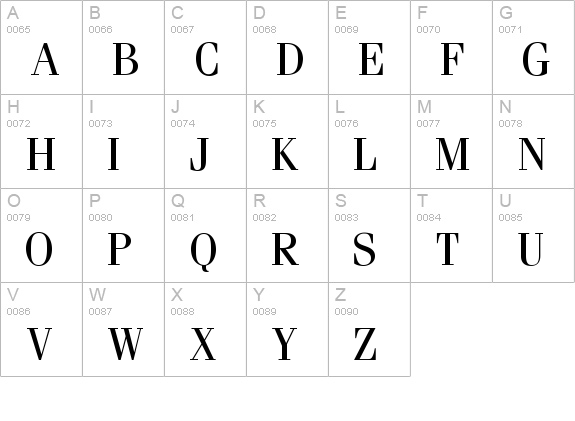
FeniceBook Font Details
FeniceBook font is a versatile and elegant typeface that exudes sophistication and style. Its clean lines and timeless design make it perfect for a wide range of projects, from branding to editorial design. The font strikes the perfect balance between classic and modern, making it a great choice for both digital and print applications. One of the best things about FeniceBook font is that it is completely free to download. You can easily access this premium font at FontsMarket.com and enhance your designs with its unique charm and versatility. Whether you are working on a logo, website, or a print project, FeniceBook font is sure to make a lasting impression with its refined aesthetic and exceptional legibility. Don't miss out on the opportunity to elevate your design projects with the timeless beauty of FeniceBook font. Download it for free today and add a touch of sophistication to your creative work.